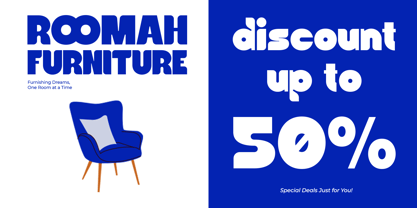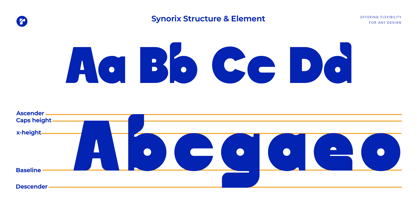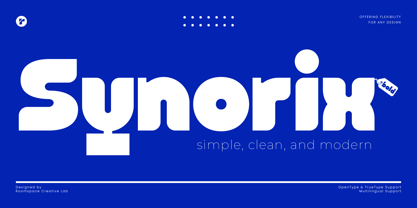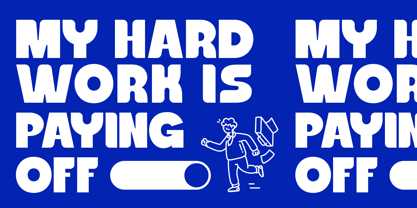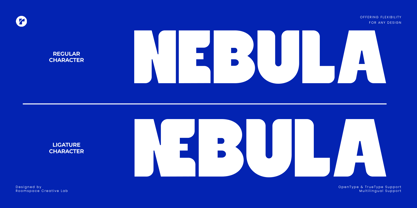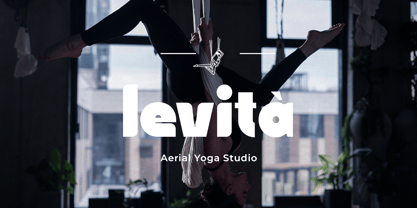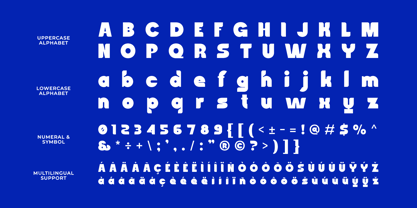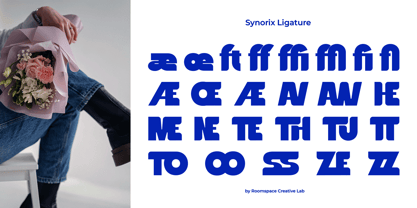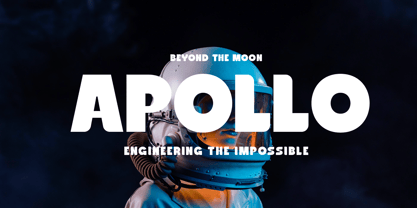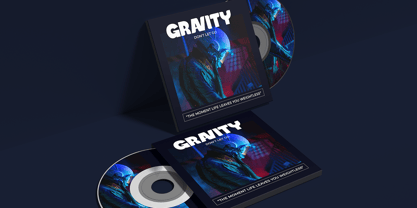
Synorix
by Jafar07
The Synorix Font Family was designed by Bakhrudin Ja'far and published by Jafar07. Synorix contains 1 styles. More about this family
Synorix is a bold and modern sans serif font with a soft, rounded touch. Designed to be thick, clean, and visually striking, this font is perfect for logos, branding, headlines, posters, and more. Its smooth curves and balanced proportions give it a friendly yet strong personality, making it a great choice for both creative and professional projects.
Whether you’re working on a fashion brand, social media graphics, or a sleek corporate identity, Synorix brings a fresh and contemporary feel. Plus, with multilingual support, it’s ready to be used in designs for a global audience. Add a touch of bold simplicity to your work with Synorix.